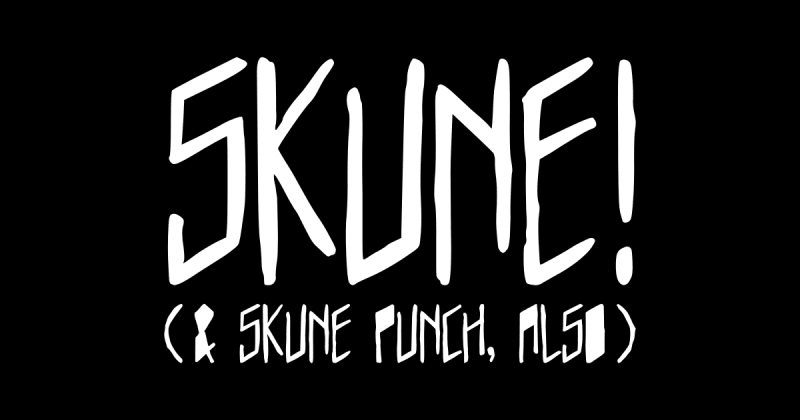
Skune is a new variable font featuring hand-drawn glyphs with a punk aesthetic. The font includes a Slant axis that rotates glyphs rather than distorting them, and comes in two variants: the standard Skune and Skune Punch (a stencil-like version with filled counters). Each font contains 62 glyphs including uppercase letters, numbers, punctuation, and symbols, with files approximately 30KB each.